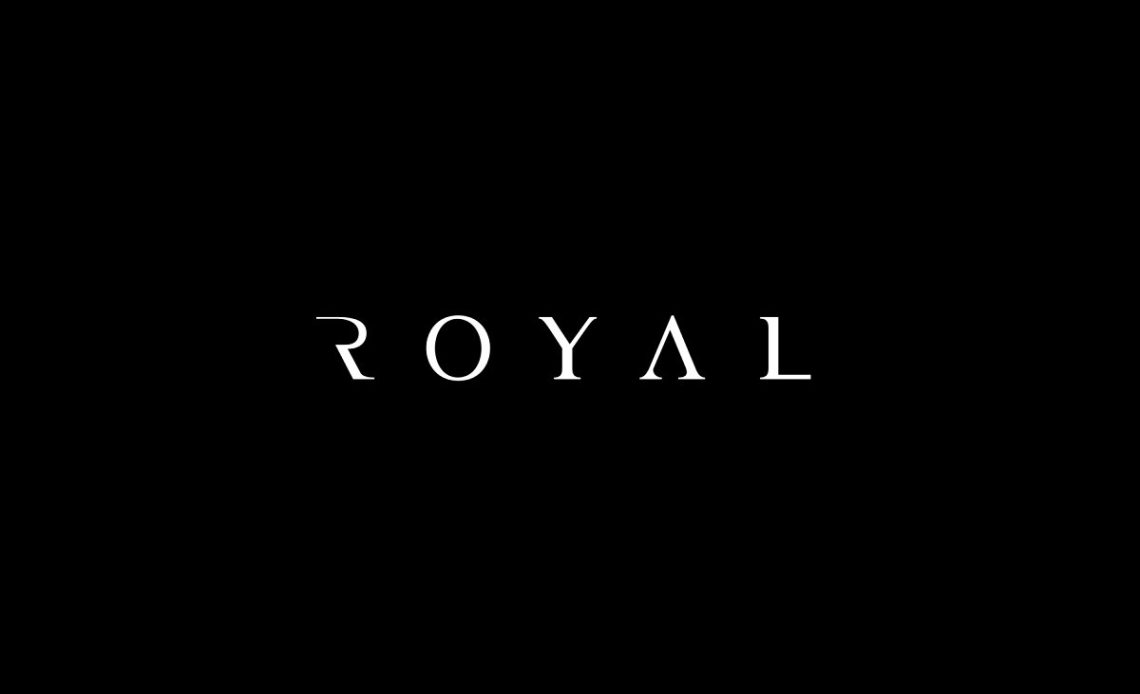
Welcome to the world of Royal - the luxurious high-end serif font crafted by Bramaji Dipa Manggala. Are you looking for the best font for a modern resume that will make you stand out from the crowd? Look no further than Royal.
This elegant font is perfect for those who want to emphasize and upscale their premium look with a twist. Its luxurious and sophisticated design is sure to grab attention and leave a lasting impression. Plus, it's not just another ordinary font - it's a display font that's meant to be used for headings, titles, branding, logos, wordmarks, and other applications.
With Royal, you get access to a full alphabet, numerals, kerning, and several punctuation marks. And if you're looking for a complete multilingual version, simply send us a message and we'll provide it for you.
But what makes Royal truly unique is its ability to evoke emotion and capture the essence of your brand. Whether you're designing a resume, business card, or website, Royal adds a touch of elegance and sophistication that sets you apart from the rest.